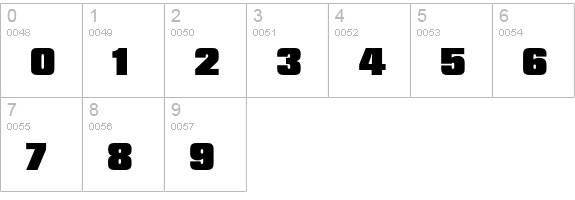
CompactaEF-Black is a maximum-weight, dramatic variant in the CompactaEF typeface family \xE2\x80\x94 well suited to maximum-impact headlines, posters, and packaging.
CompactaEF-Black is a bold and modern font that exudes strength and sophistication. Its sleek design and sharp edges make a powerful statement, perfect for headlines, logos, and branding. The compact nature of this font allows for efficient use of space while maintaining readability and impact. What sets CompactaEF-Black apart is not only its bold appearance but also the fact that it is available for free download at FontsMarket.com. This means that designers and creatives can easily access this high-quality font without any cost, making it a valuable addition to any project. Whether you are looking to add a touch of boldness to your designs or make a striking visual impact, CompactaEF-Black is the perfect choice. Download it now and elevate your design projects with this impressive font.